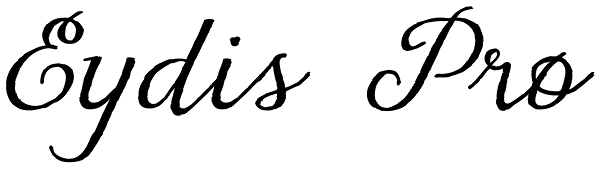
Eydis
Eydis Regular is a casual script font that retains the original texture of the stroke on the paper. This font has good legibility as body type and strong expressiveness to be used as headlines or logotypes in all media requirements. These...